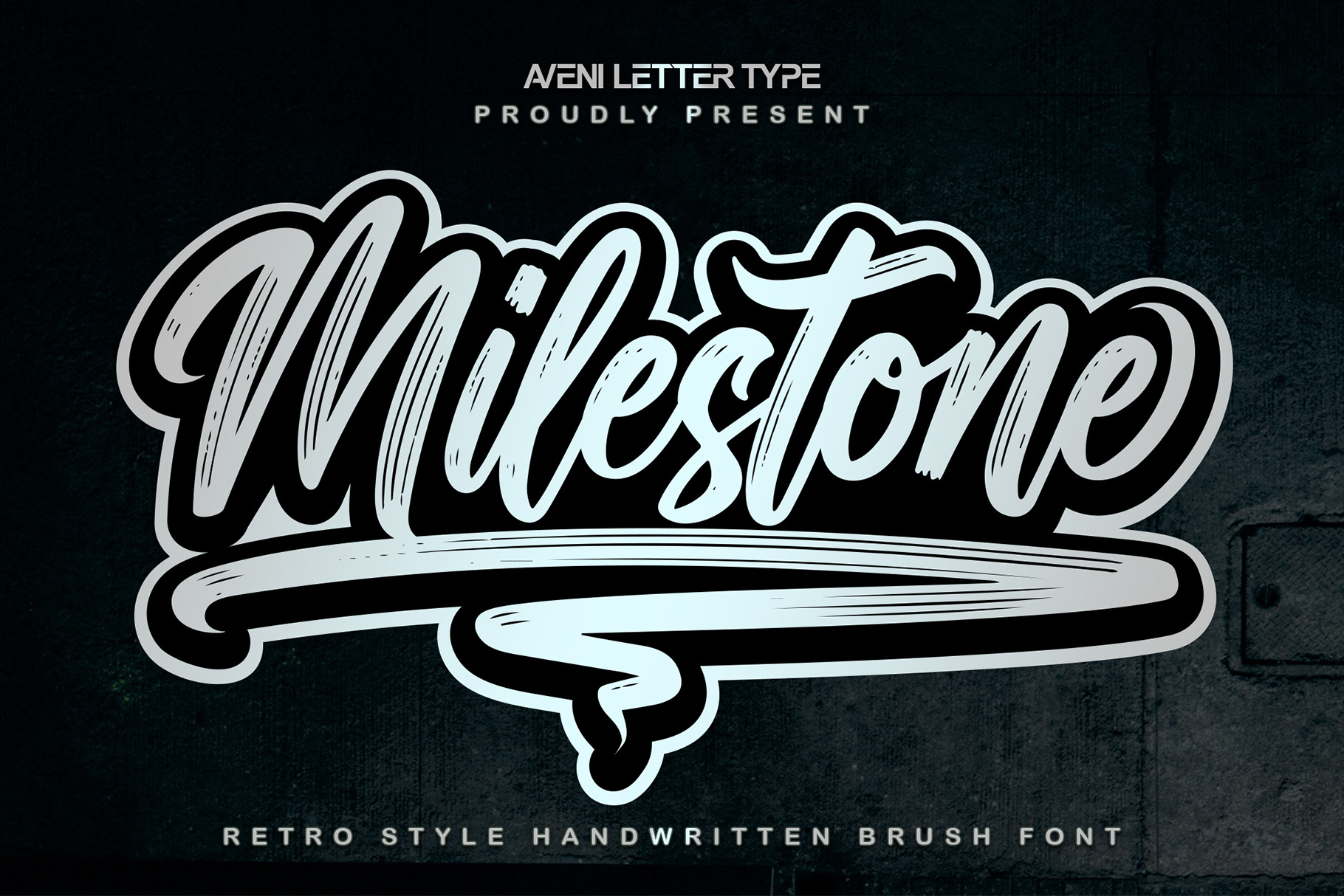
Milestone | Retro Handwritten Font
Hi Guys, my name is Milestone, I was born in a handwritten font with a retro style but it is still elegant and has a very neat kerning. This font will look great on various projects and use them to get creative in outfit branding, product packaging branding, posters, merchandise, signage store, social media, and more!
Here I give a little way to use swashes in the Milestone font:
Use the code listed on the thumbnail, such as SW001 to create a swash.
Example: MilestoneSW001
Font Feature :
- Alternate & Swashes